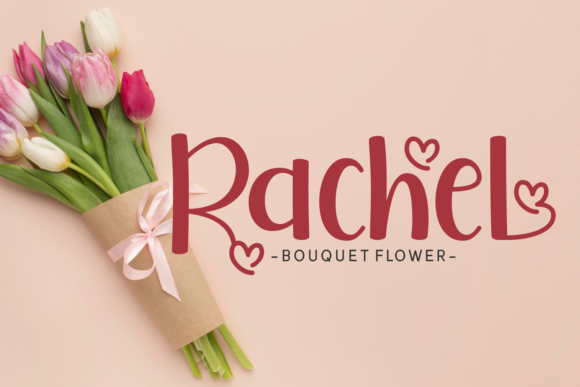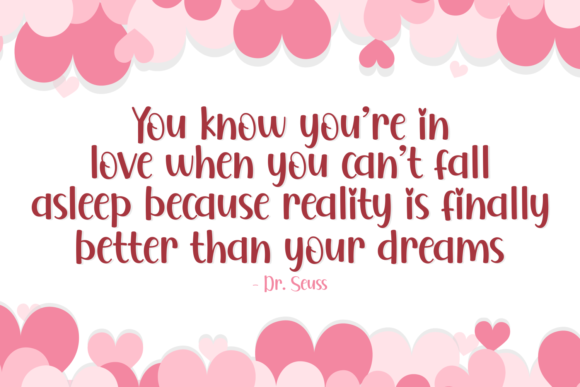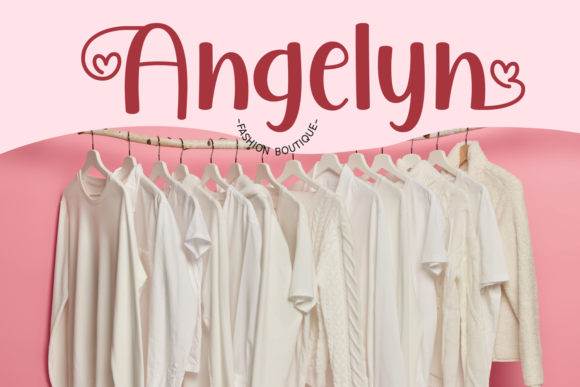
Introduction to Moriya Font
As a designer, there’s nothing quite like the thrill of finding the perfect font to bring a creative project to life. It’s that moment when all the pieces fall into place, and your idea starts to take shape. For me, that moment came when I discovered the beautiful Moriya Font. Its authentic feel and high-quality design made it an instant favorite, and I knew I had to share it with the world.
With its transparent background and delicate lines, Moriya Font is the perfect addition to any design project. Whether you’re working on a logo, branding, or simply a creative card, this lovely font is sure to add a touch of elegance and sophistication. And the best part? It’s a free download, making it an invaluable resource for designers of all levels.
As a valuable design resource, Moriya Font offers endless possibilities for creative expression. Its versatility and high-quality design make it a must-have for any designer looking to take their projects to the next level.
Key Features of Moriya Font
- High-quality, elegant script font suitable for creative projects and designs.
- Transparent background, allowing for easy layering and customization in design software.
- Features a unique, hand-drawn aesthetic with a touch of sophistication, perfect for adding a personal touch to designs.
Honest Review: Moriya Font
I recently had the chance to work with the Moriya Font and I must say, it’s a great addition to any designer’s toolkit. The font has a high quality feel to it, with a beautiful and elegant design that’s perfect for creative projects.
One of the standout features of the Moriya Font is its transparent background, which makes it easy to layer and combine with other design elements. This is a huge plus for designers who need to create complex and intricate designs.
Here are some of the things that work well with the Moriya Font:
- ✨ Elegant and sophisticated design that’s perfect for creative projects
- ✨ High quality feel that’s sure to impress
- ✨ Transparent background for easy layering and combining with other design elements
Of course, no font is perfect and the Moriya Font is no exception. Here are some limitations to be aware of:
- ⚠️ Limited font weights and styles, which may limit its versatility
- ⚠️ May not be suitable for projects that require a bold or dramatic font
Overall, I’m really impressed with the Moriya Font and would highly recommend it to any designer looking for a high quality, elegant font for their next creative project.
Tips for Getting the Most Out of Moriya Font
Use Moriya Font for creative projects that require a high quality, unique font. Experiment with different font sizes and colors to add visual interest to your design. Consider combining Moriya Font with other design elements, such as graphics and images, to create a cohesive look.
Moriya Font is commonly used in graphic design, digital art, and branding projects. Its transparent background feature makes it a great choice for overlaying text on images or graphics. You can also use Moriya Font for free download in presentations, documents, and websites.